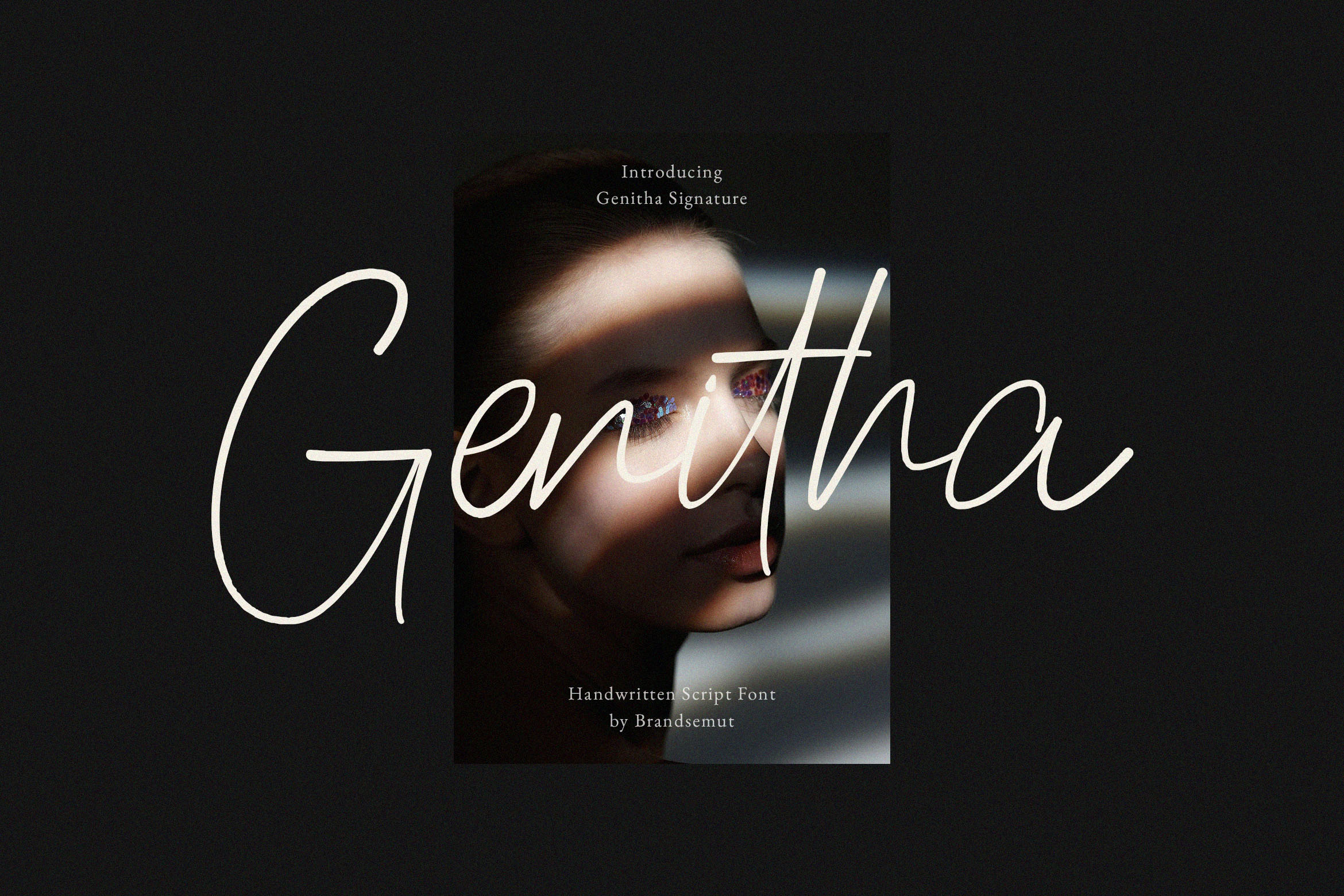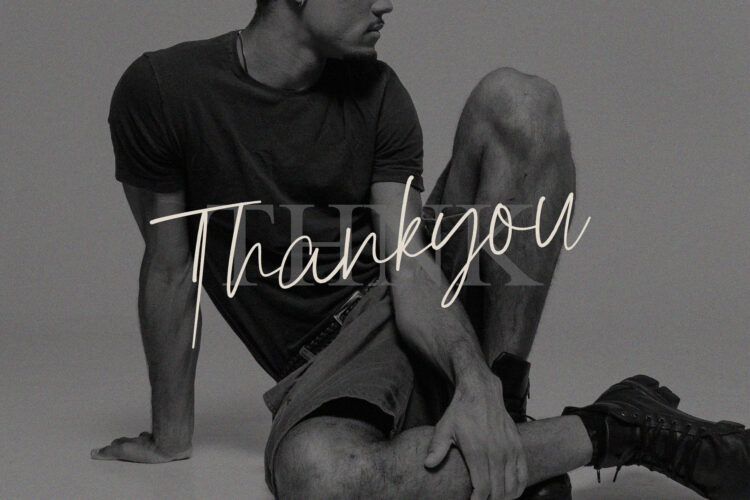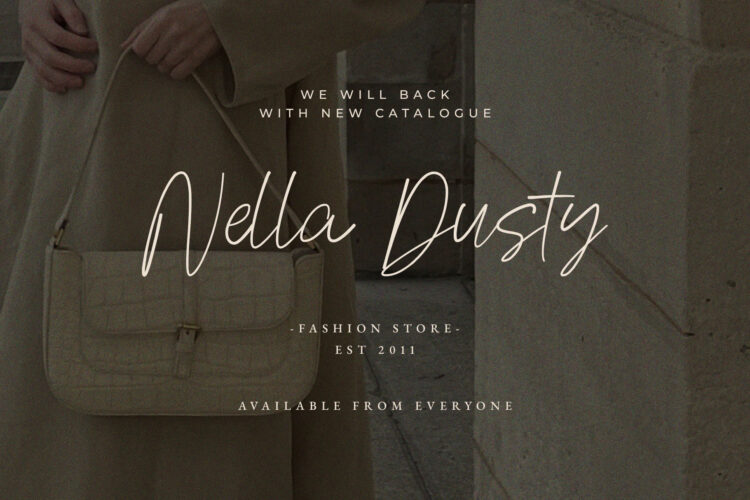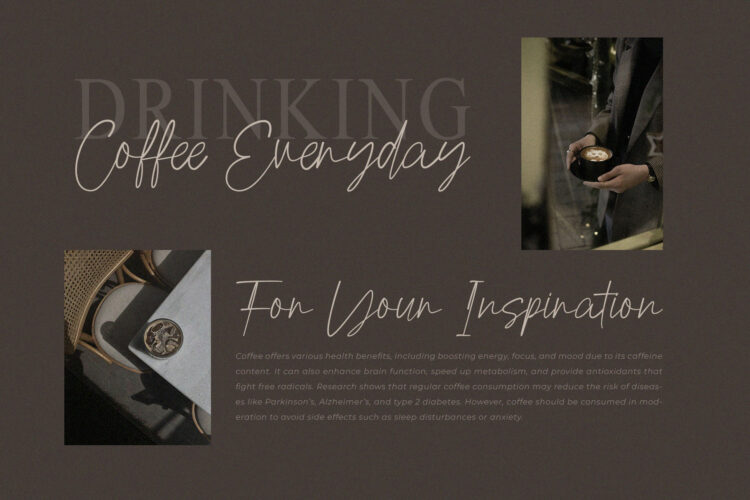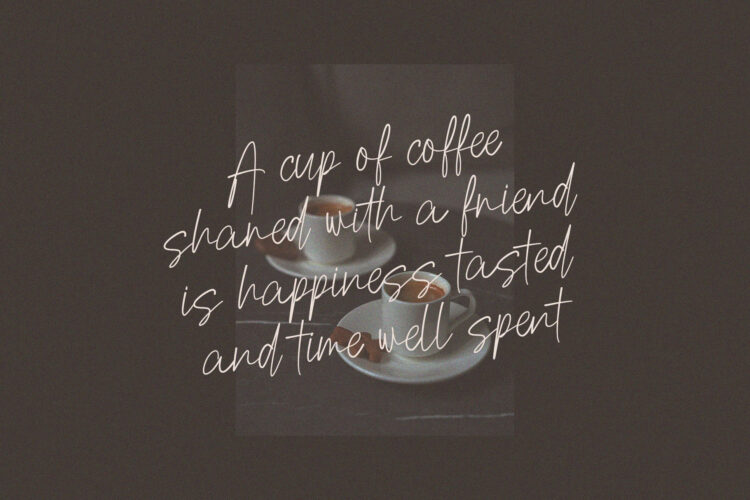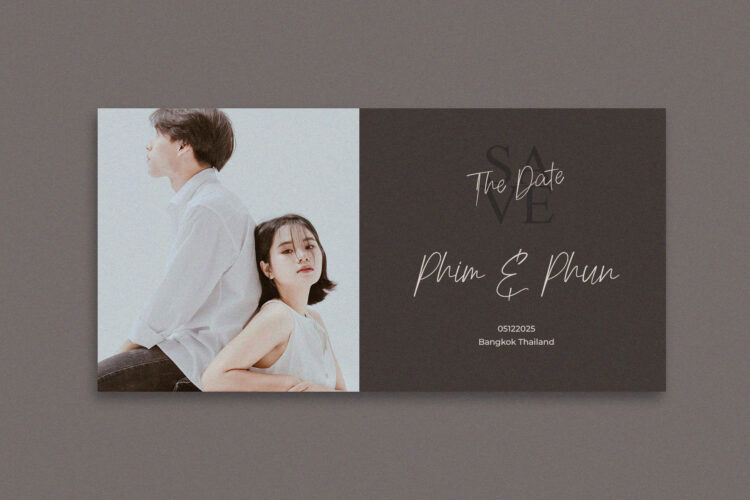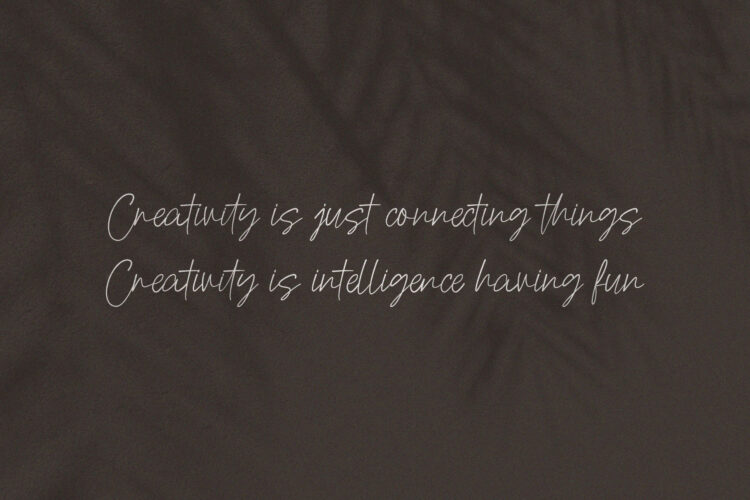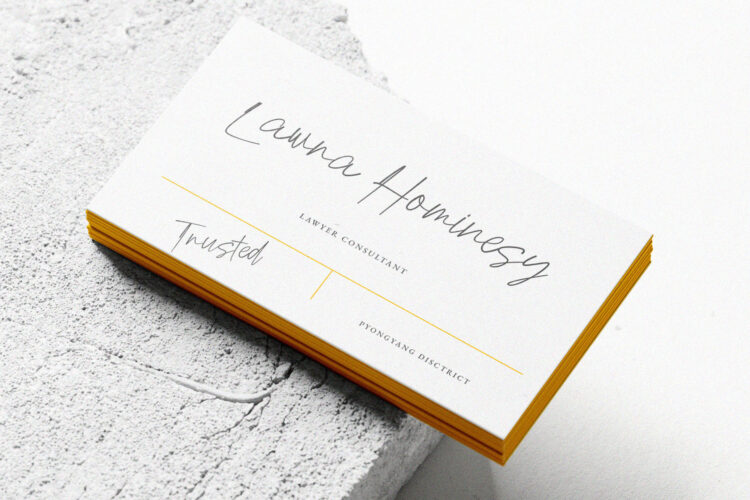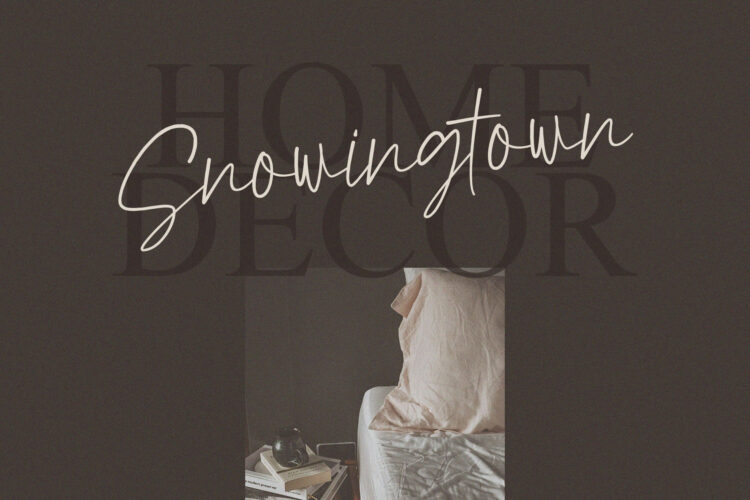
Introducing the new Genitha Signature Font is a elegant and stylish handwritten script, that you can use to perfect your design.
You will get full set of lowercase and uppercase letters, multilingual, numerals and punctuation.
Genitha – Handwritten Script Font